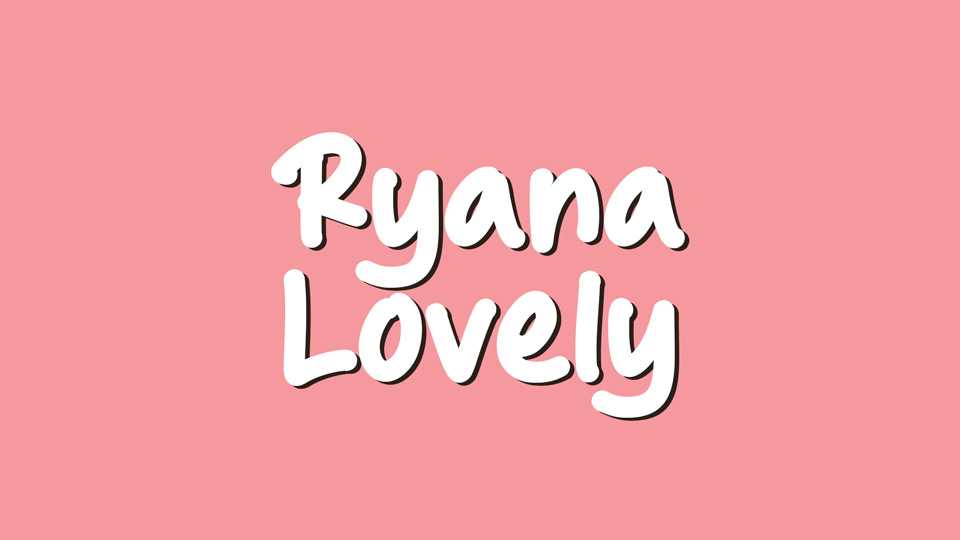
Download Ryana Lovely font, a simple and cute handwritten typeface crafted to add a touch of personality to your creative projects! Get Ryana Lovely font that’s smooth, natural, and authentic – perfect for quotes, books, organic branding, social media, blogs and more.